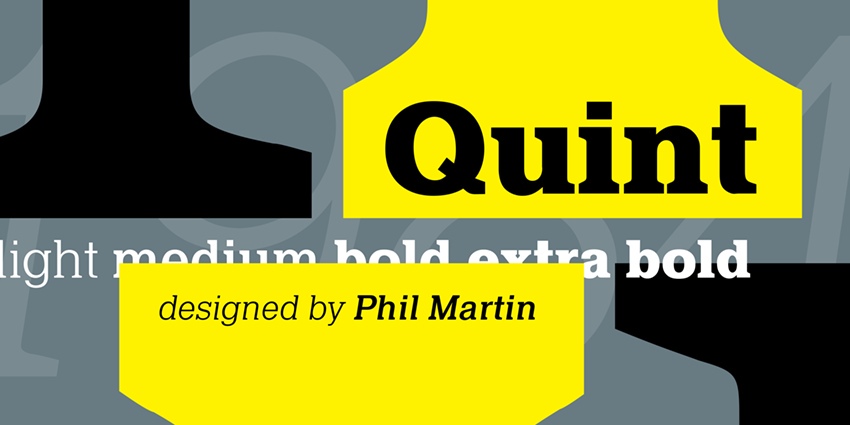
Quint Font
Quint Font is excellent for modern branding projects, clean website designs, contemporary logo creation, editorial magazine layouts, tech company identities, minimalist poster designs, sleek user interfaces, and professional presentation materials.
This exciting Quint Font captivates designers with its refined simplicity and perfectly balanced proportions that embody contemporary design excellence while delivering exceptional readability and visual clarity. The font's harmonious structure and understated elegance make it an ideal choice for projects requiring sophisticated minimalism, professional polish, and timeless appeal that transcends passing design trends.
The Quint Font family features comprehensive weight options including Ultra Light, Light, Regular, Medium, Semi-Bold, Bold, and Black variations, along with their corresponding Italic styles, providing designers with complete typographic flexibility for creating polished and cohesive brand communications.
Achieve design perfection with Quint Font Free Download - a meticulously crafted typeface that represents the pinnacle of contemporary typography. This versatile font combines mathematical precision with human warmth, making it perfect for brands seeking to communicate intelligence, reliability, and forward-thinking design sensibilities in today's competitive marketplace.
The sophisticated character of Quint Font makes it particularly valuable for technology companies, design agencies, financial institutions, and professional service providers that need to establish credibility while maintaining approachable, human connections with their audiences. Its clean aesthetic appeals to users who appreciate quality, precision, and thoughtful design execution.
Professional designers rely on Quint Font for its exceptional performance across multiple platforms and applications while maintaining perfect readability at all sizes. The font's balanced letterforms work seamlessly from small mobile interfaces to large-format environmental graphics, ensuring optimal legibility and visual impact across all contexts.
The versatile functionality of Quint Font supports comprehensive brand ecosystems and extensive digital applications. Its neutral yet distinctive character provides a reliable foundation for complex information hierarchies while maintaining visual interest and professional sophistication throughout all brand touchpoints.
Modern organizations choose Quint Font to project competence, innovation, and reliability in competitive business environments. The typeface's contemporary elegance and universal appeal help brands establish market presence while communicating quality and trustworthiness to diverse global audiences who value professional excellence and design sophistication.